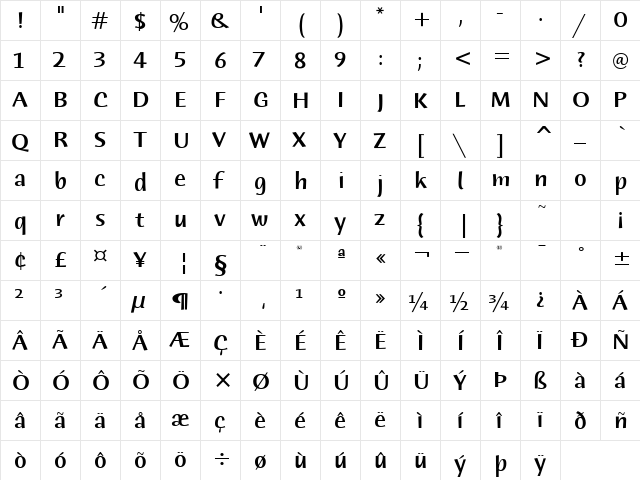
HumanaSansITC-Medium Medium Font Preview
HumanaSansITC-Medium Medium
HumanaSansITC-Medium Medium Font Details
Design Context for HumanaSansITC-Medium Typeface
HumanaSansITC-Medium takes a measured approach to typography — its balanced proportions and neutral character make it a reliable workhorse for both digital and print work.